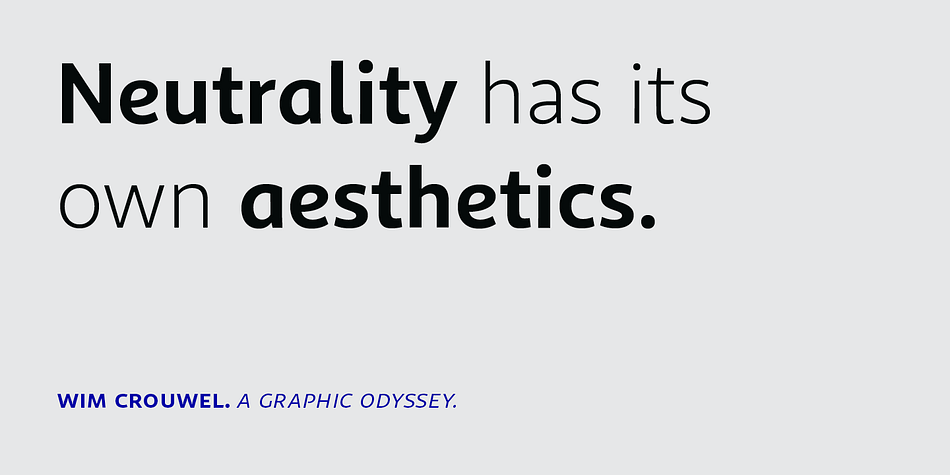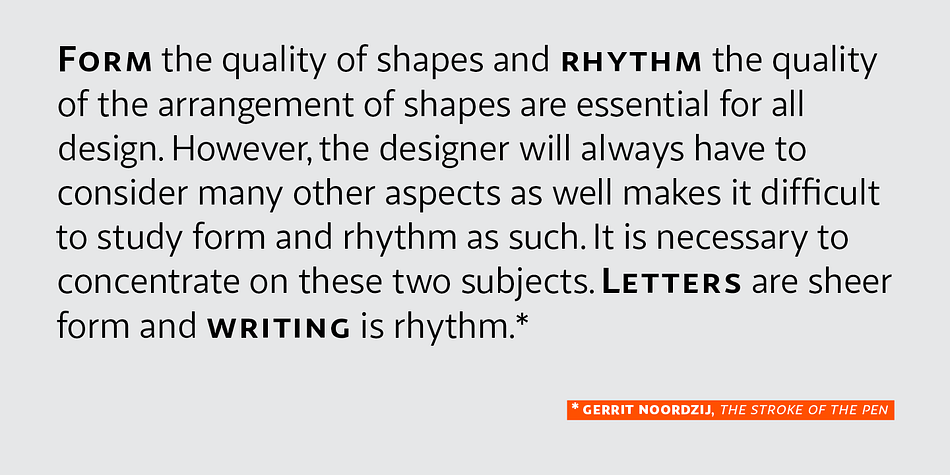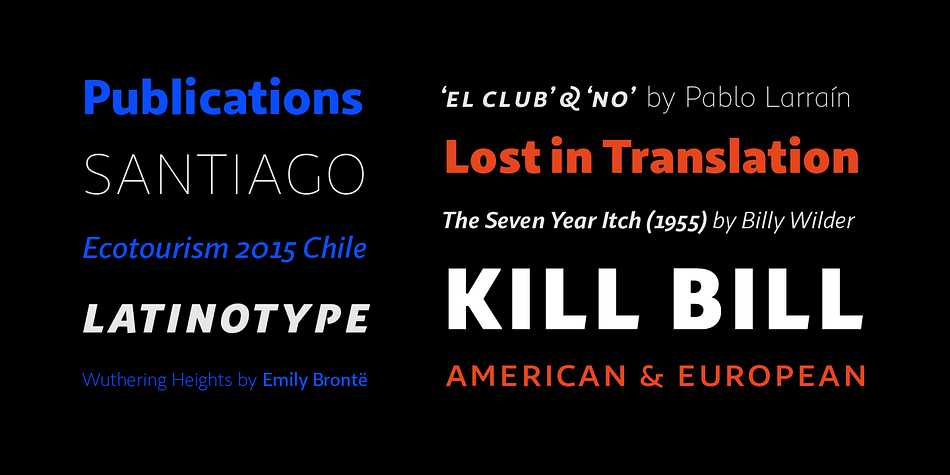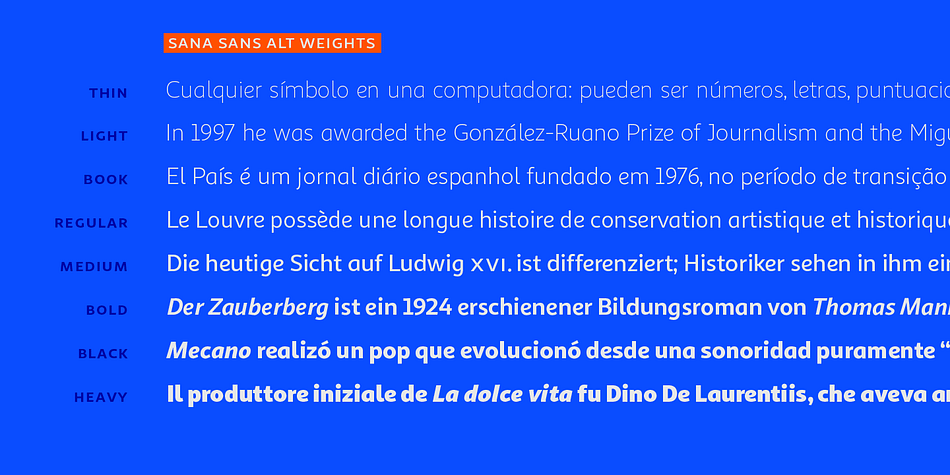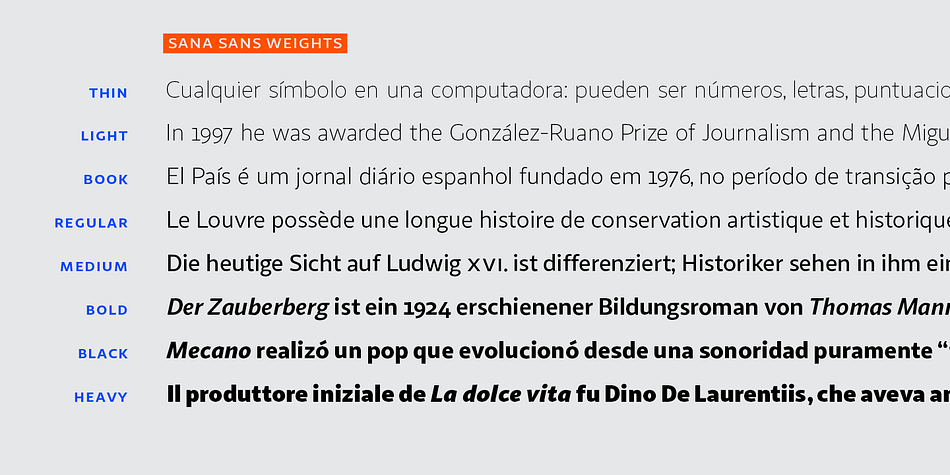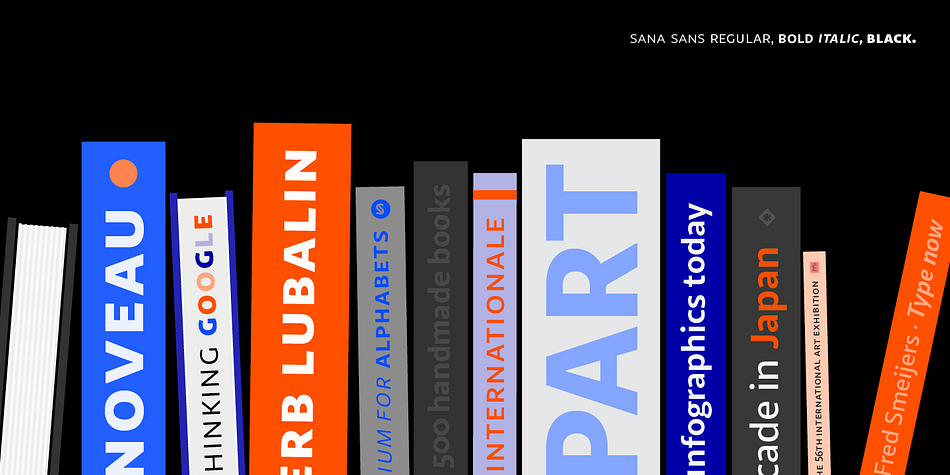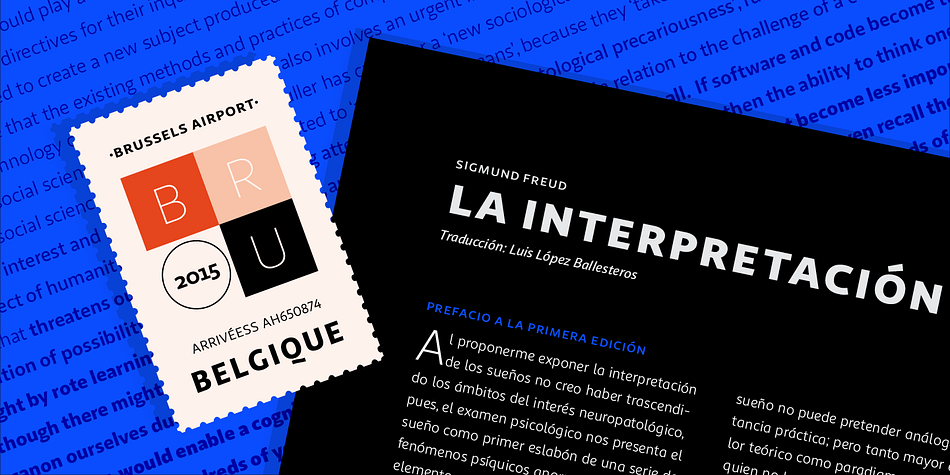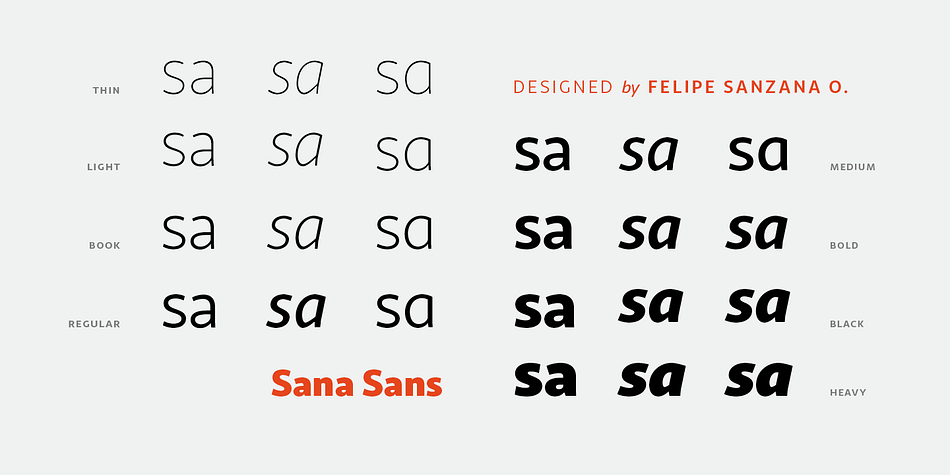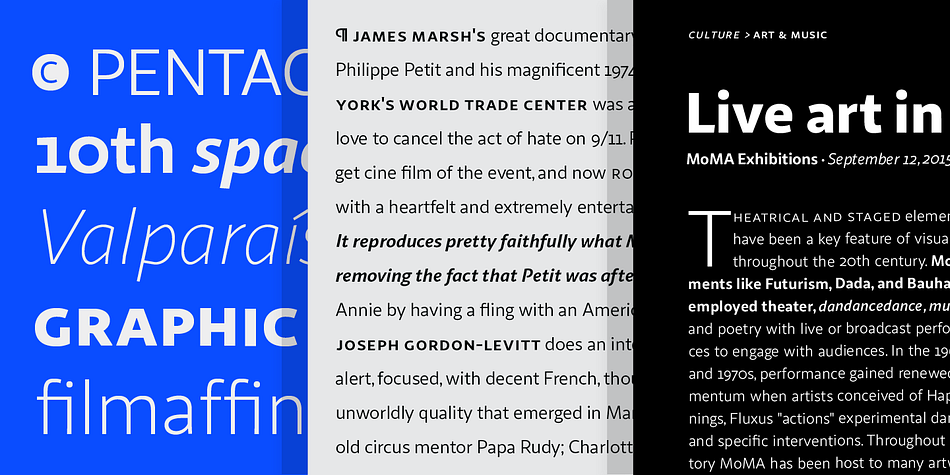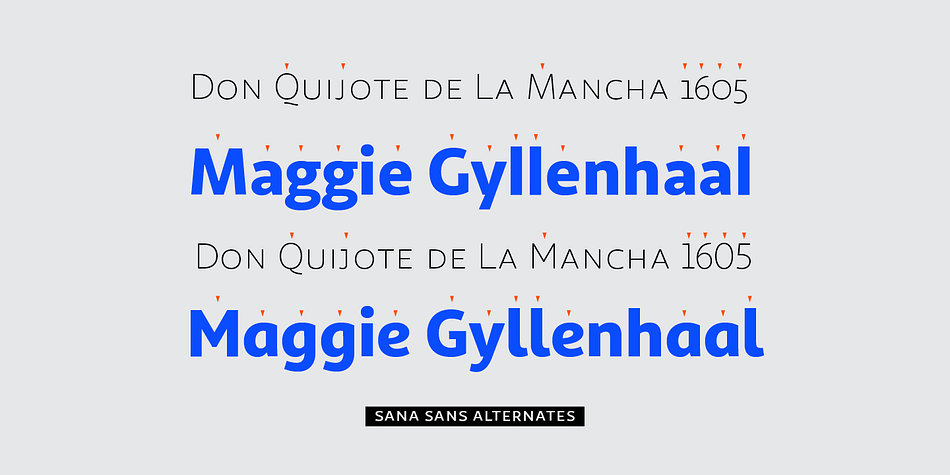
Designed by Felipe Sanzana, Sana Sans is a sans serif font family. This typeface has thirty-two styles and was published by Latinotype.
Sana Sans is a humanist functional typeface with a modern feel. It is intended to be a face well-suited for multiple purposes, especially in publishing. Sana Sans looks perfectly legible and clean in long texts, and neat and simple in headlines. Thanks to its versatility, this font is also ideal for both screen and print usage.
Sana Sans consists of 32 styles and 8 weights-ranging from Thin to Heavy-italics, small caps and an alternative family.
Sana Sans was designed by Felipe Sanzana, under the supervision of Latinotype Team.